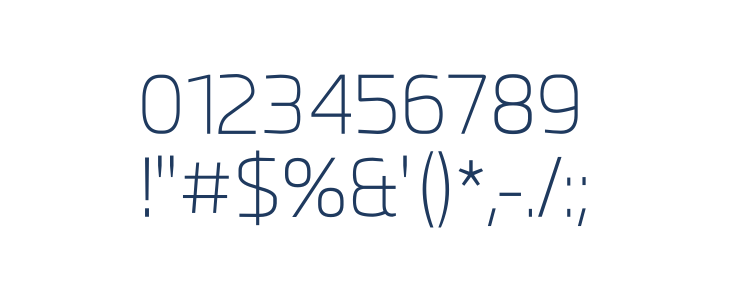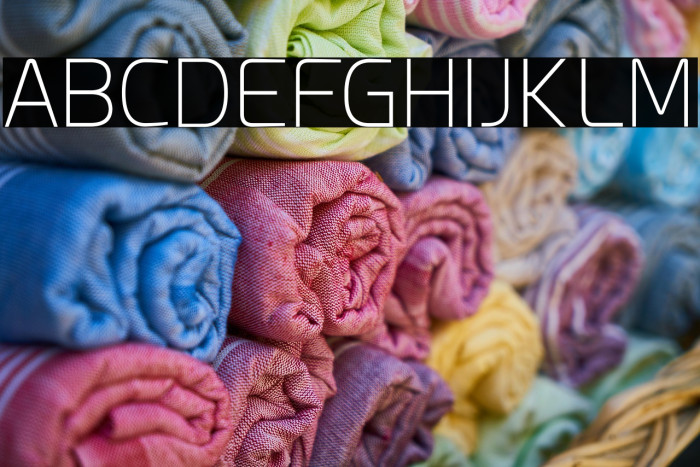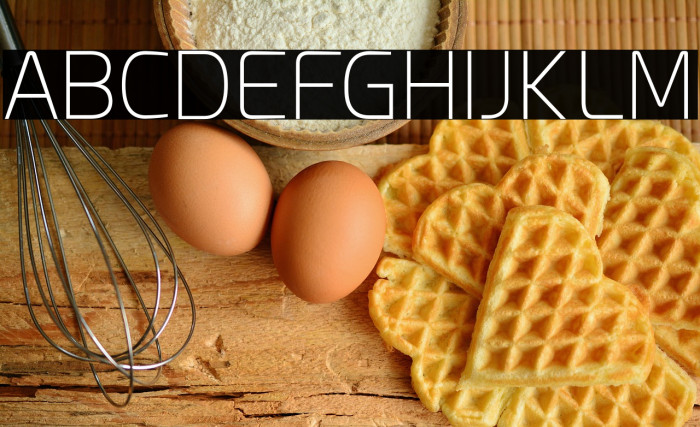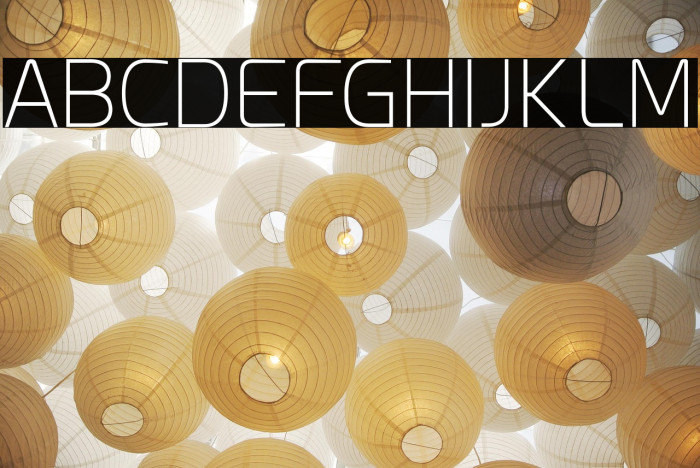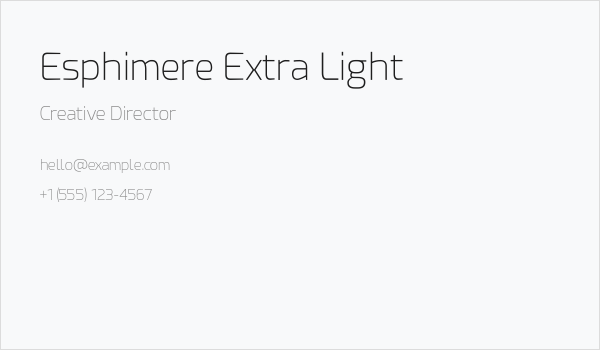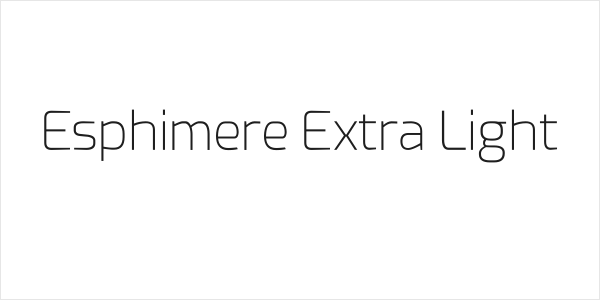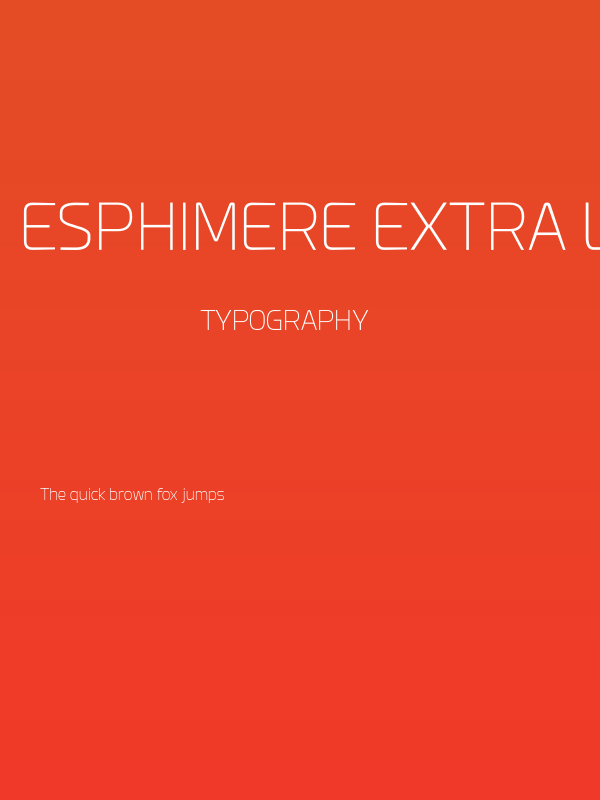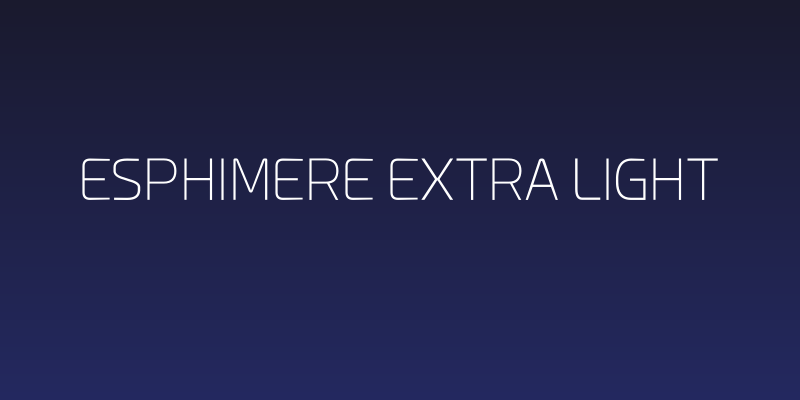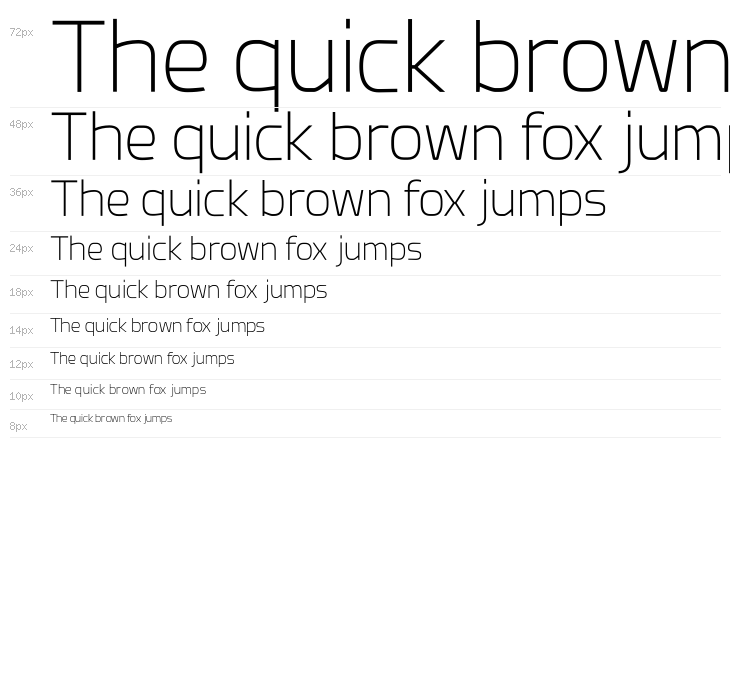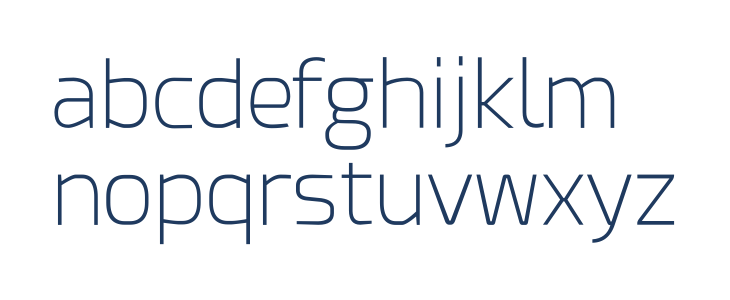
Esphimere Extra Light Font
Esphimere Extra Light Description
This font features a sleek and modern design with clean, geometric lines. The characters are evenly spaced, providing a balanced and harmonious appearance. The uppercase letters are tall and slightly narrow, while the lowercase letters maintain a consistent height, contributing to the font's uniformity. The numerals are clear and legible, matching the overall style of the alphabet. Special characters are designed with the same attention to detail, ensuring they integrate seamlessly with the rest of the font. The thin strokes and minimalistic design make it suitable for contemporary projects.
| Proposed Projects | Ideal for branding, digital interfaces, minimalist posters, and modern web design. |